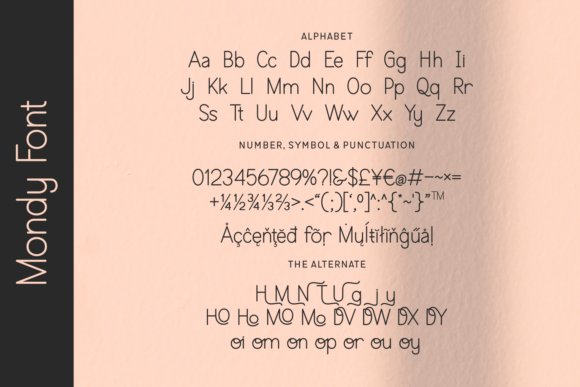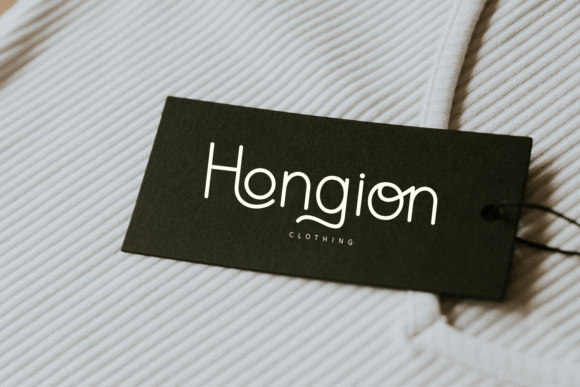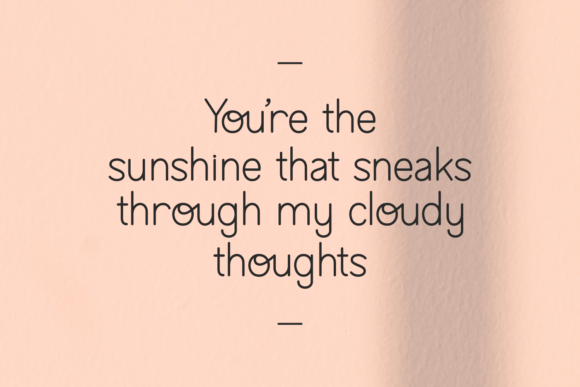
Introduction to Mondy Font
Mondy is a monoline sans serif font with unique ligatures and artistic alternates that bring an elegant, handcrafted flair.
Ideal for wedding stationery, boutique branding, lifestyle content, and creative editorials, it’s a soft yet expressive choice .
Why Choose Mondy Font?